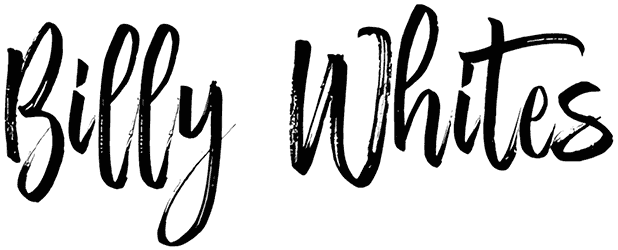
Billy Whites Font
If you feed on exceptional script fonts and your assignments need a bit of a cozy feeling in their texture, free up the time you spend on every design detail and cut costs. Here, Billy Whites, with its marker face, comes across to deliver satisfying effects with its sweet urban touch.
This brush font with A-Z characters could polish up your illustration in a catchy, dynamic way. Catch it now and leave them to cast the spell on your content!